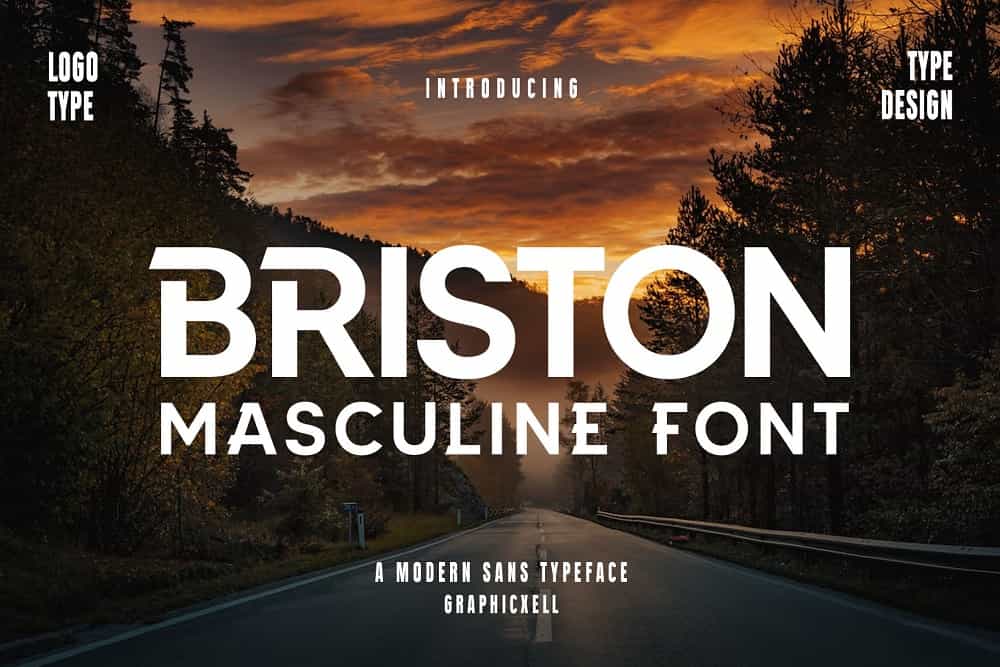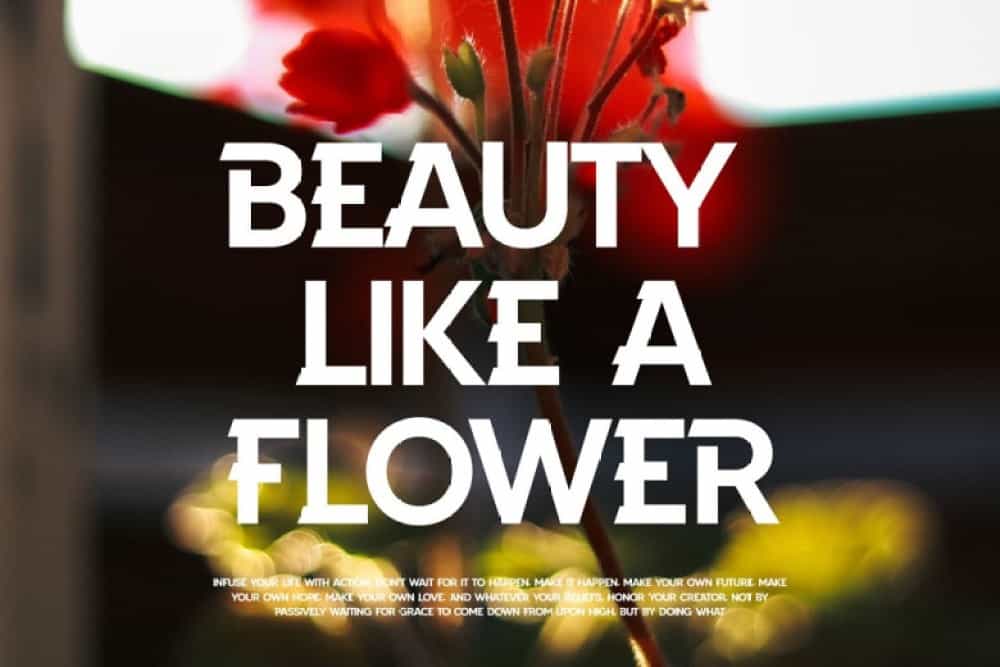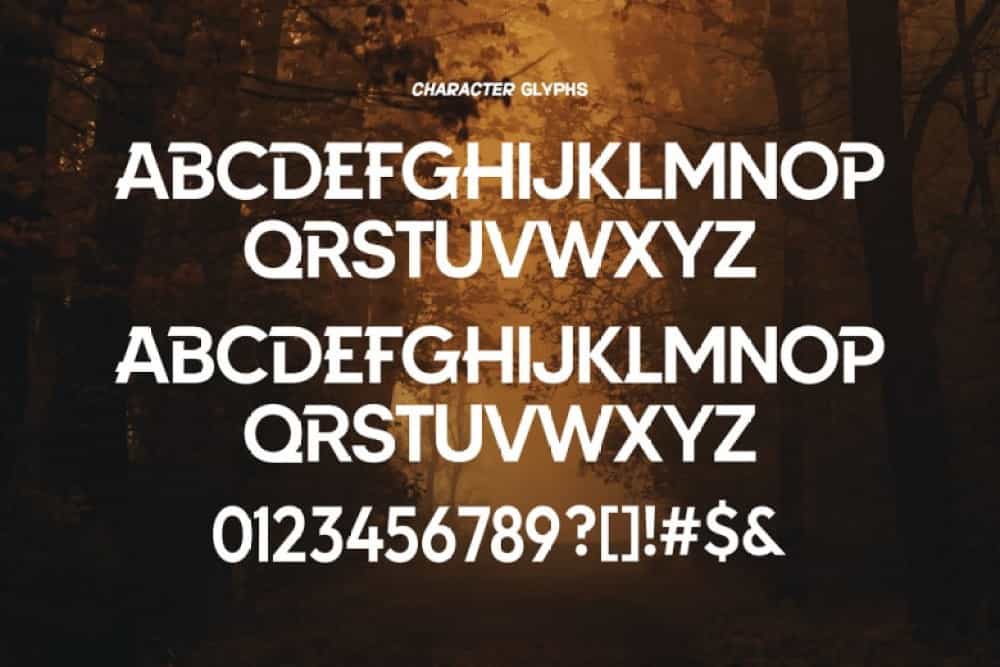
Briston is a fresh and chic font with its sans-serif design. This font has a modern and clean look to it, and can be used effectively to give a more professional look to any project. It is well suitable for print or digital projects since it provides a clean and stylish look for any text you apply it to.